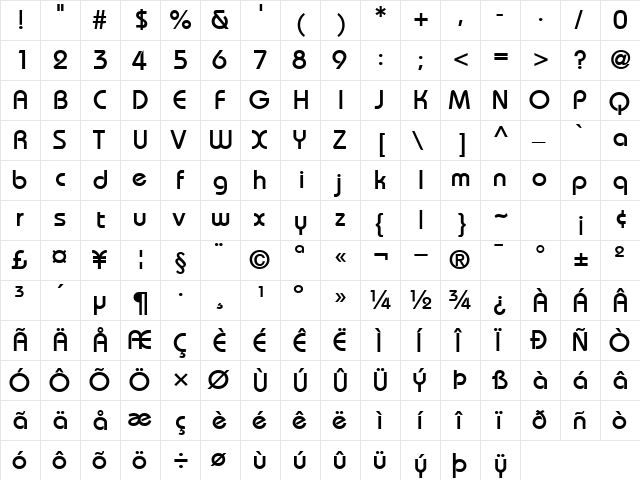
Unique Heavy
Design Context for Unique Typeface
Unique takes a measured approach to typography — its balanced proportions and neutral character make it a reliable workhorse for both digital and print work.